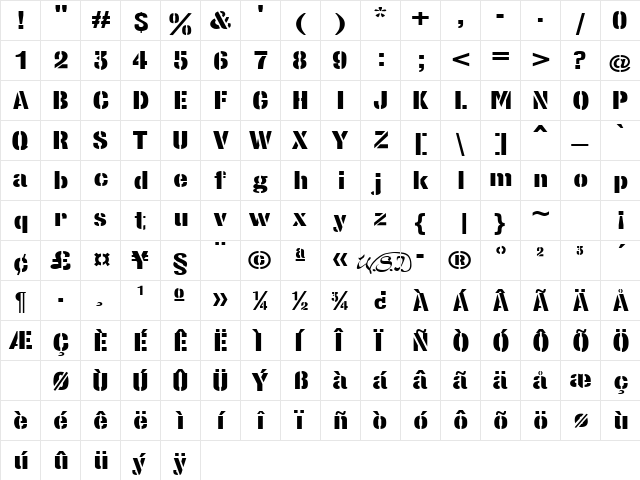
StencilSans Extrabold Regular
Design Context for StencilSans Extrabold Typeface
StencilSans Extrabold has the rough pragmatism of spray-painted stencil signage, adding a raw, street-level authenticity to designs. The heavy weight commands attention and anchors typographic hierarchies.
A strong choice for packaging that needs edge, warehouse aesthetics, and rough-and-ready visual identities.
Pro Tip: Use StencilSans Extrabold at large sizes on packaging, posters, or apparel where the stencil cutaways read clearly. Avoid small sizes where those gaps become visual noise.